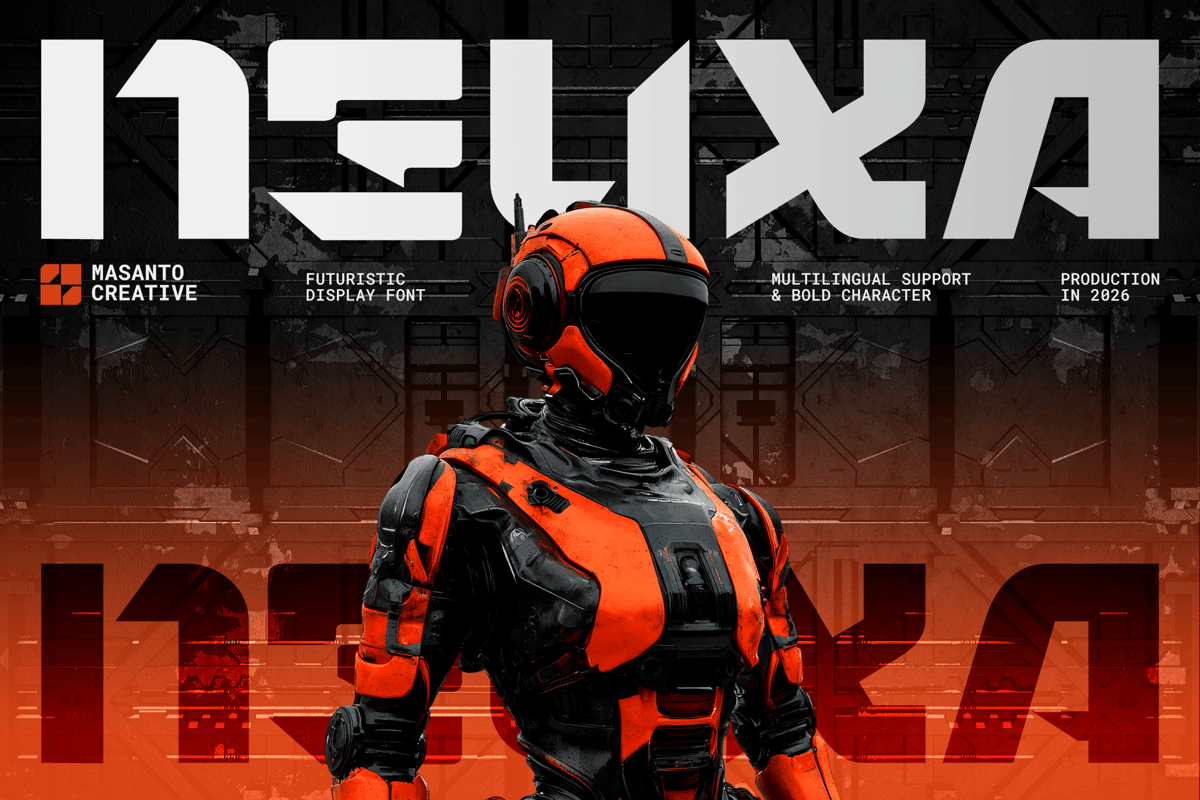
Neuxa – Futuristic Cyberpunk Display Font
Neuxa is the bold, mechanical display typeface built for the future of sci-fi, gaming, and tech design.
Inspired by robotics engineering, AI systems, and cyberpunk environments, Neuxa combines industrial geometry with high-tech styling to deliver a typeface that feels both aggressive and precise. Its modular letterforms carry a clean yet powerful aesthetic that commands attention in any layout.
This typeface is ideal for a wide range of forward-looking creative projects, including:
- Sci-fi posters and movie titles
- Cyberpunk artwork and editorial design
- AI and robotics branding
- Gaming UI and cover titles
- Web and app interface design
- Futuristic product packaging
- Technology presentations
- Space and aerospace graphics
- Futuristic cyberpunk display typeface
- Bold industrial and geometric letterforms
- Uppercase characters
- Numbers and punctuation
- Multilingual support
- Unique stylistic letterforms for headlines and visual layouts